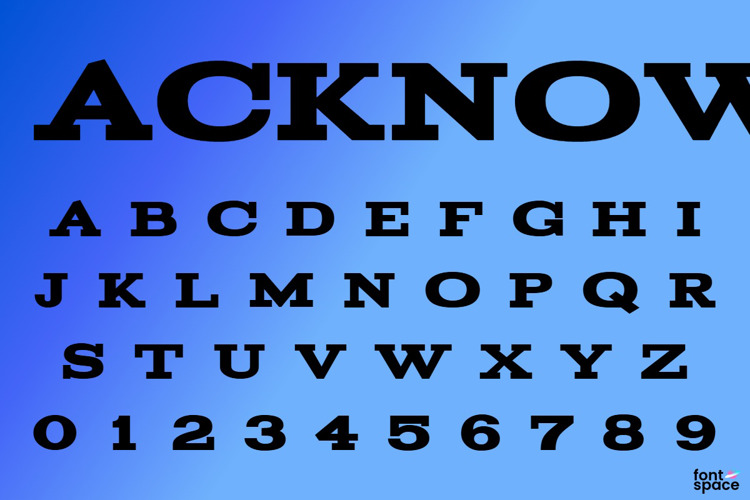
Acknowledgement Font
Acknowledgement was a quick font project, which I wanted to complete in time to give a copy of the result to a friend to commemorate her thirtieth birthday. The inspiration was a considerably older source: some victorian wood type which I had printed about six months earlier. The test word I composed was ‘acknowledgement’ all in capital letters: hence the font name and the fact that is it entirely uppercase, although in the lower case there is a duplicate set with ‘alternative sorts’: variant forms of some letters that I drew later on and liked.
My working method was to try as hard as possible to reconstruct the letterforms of the victorian wood type without looking at the originals. So the end result is a synthesis of recollection and conjecture. It doesn’t exactly resemble the original in many details, but overall it gives a similar effect. My article about drawing type from recollection elaborates on this method.
In the final analysis though, this is an exercise which possibly was more useful for the learning experience than the results, since the face is so fat that it is fairly difficult to find a use for it.